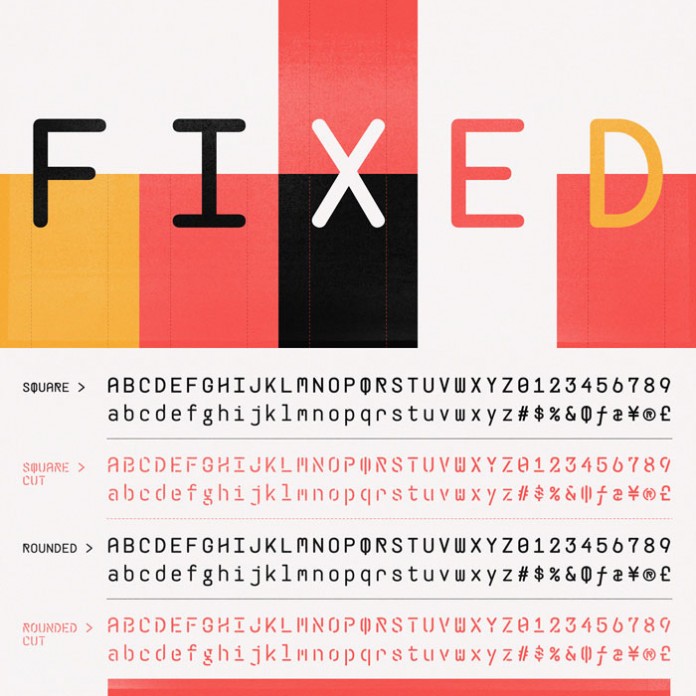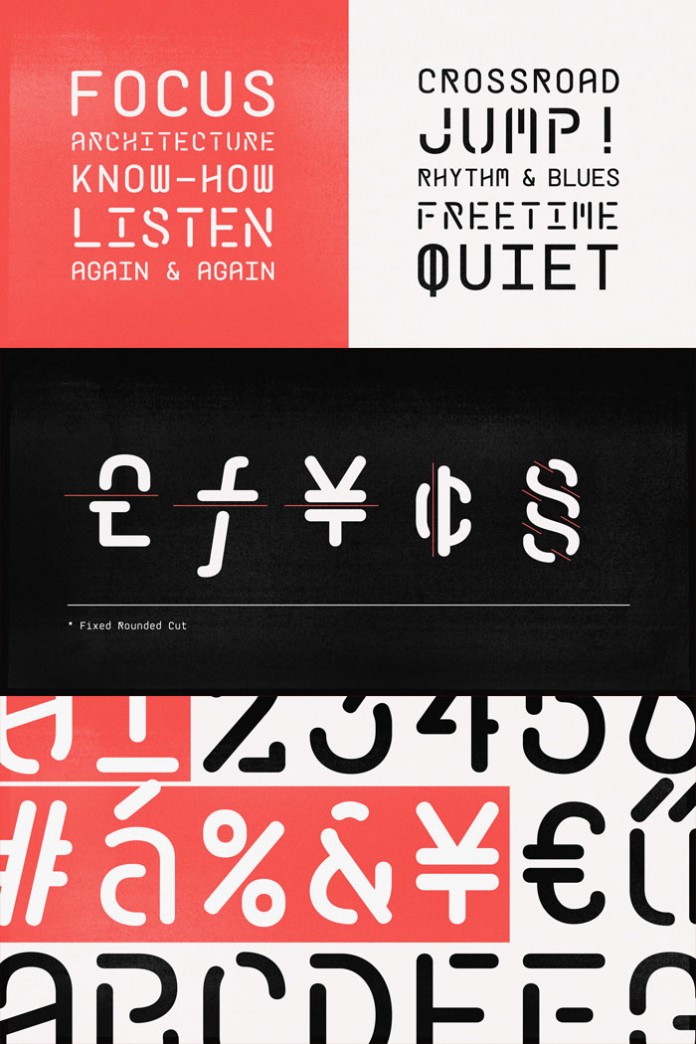
The Fixed font family, a modern typeface designed by Vorathit Kruavanichkit and Sumpatha Jadee of foundry Produce.
The two Bangkok, Thailand based type designers Vorathit Kruavanichkit and Sumpatha Jadee of foundry Produce collaborated in 2013 to create the Fixed font family.
Each letter of the type family is based on a fixed width. It’s a typical monospace font family with a soft touch as well as a modern and slightly technical look. The complete Fixed font family comes with 4 unique styles including Square, Square Cut, Rounded as well as Rounde Cut. The cut versions offer a more experimental style. You can use this font for a variety of different projects such as branding or stylish poster design.